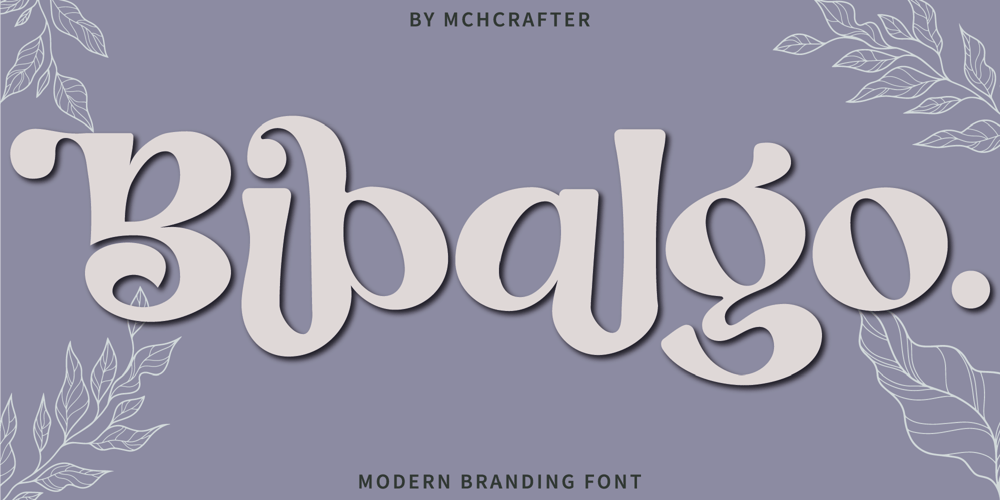
Bibalgo Font Family was designed by El Mehdi CHOUYOUKH and published by Mchcrafter. Bibalgo contains 1 styles and family package options. Bibalgo font is a Modern Stylistic Serif typeface A new serif that we created specially for branding needs, with extra ligatures and alternates in a unique shape just to add value to your brand. It is so nice to leverage designers or product owners who need solutions to make their designs look more stylish and modern. And specially for Bibalgo font, We prepared all the ligatures, and the alternate characters to help you create unlimited variations for your creative needs. Bibalgo font includes: – All uppercase & lowercase letters- All numbers 0-9 & Punctuation- Ligatures & Alternates- Symbols- Multiligual Letters